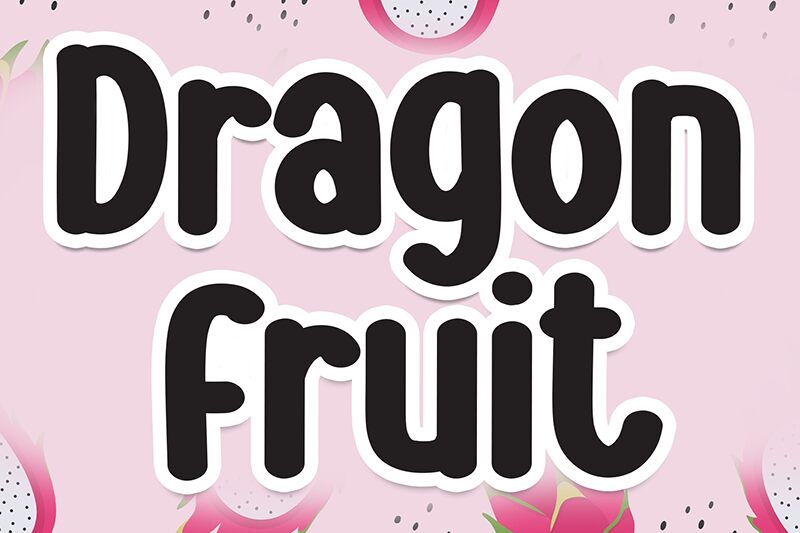
Dragon Fruit
Dragon Fruit font by Andi Moz is a charming condensed handwritten font that captures a friendly and casual vibe. Its rounded and smooth letters offer an approachable appearance, perfect for creating inviting designs. This free font strikes a balance between creativity and simplicity, making it an excellent choice for adding personality to your projects.
Use this charming typeface in posters, social media posts, packaging designs, greeting cards, merchandise labels, journals covers or interior pages. It’ll look beautiful on photography decorations, lifestyle blog titles or personal stationary such as friendship notes or stickers decorations. Its fun aesthetic suits all things cute.